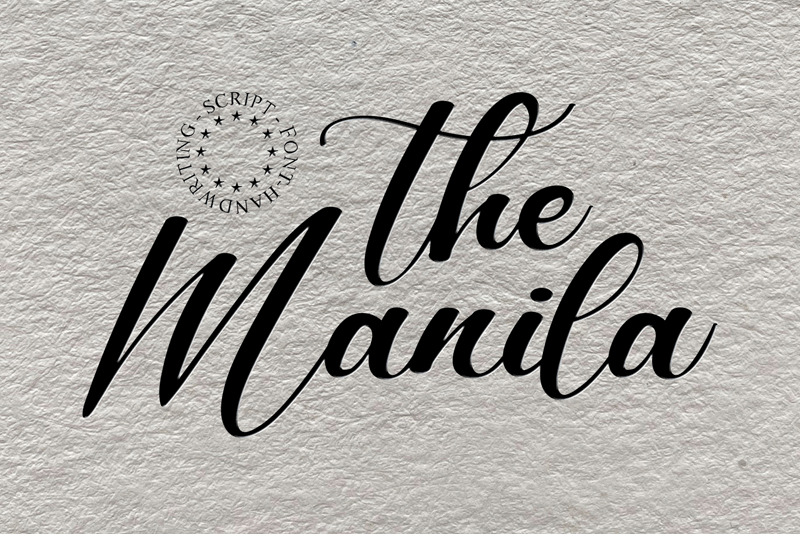
Preview and download The Manila Font. Created by Erik Luluk in Script Calligraphy styles with Free for personal use license.
The Manila is a round-lettered script font. It has a modern yet whimsical style and it will undoubtedly immerse your designs into a magical world. Attention : The Manila handwriting Font is prohibited to use this font for commercial purposes or for profit without the permission of the author/admin, without being known to use this font without permission, will be subject to sanctions 5x the specified price. This font is used only for demos (Demo license) If you want to use this font for commercial use please contact email: erikluluk0@gmail.com or click the link below: https://www.creativefabrica.com/product/the-manila/ref/745146/ If you want to see more other fonts, please click:https://www.creativefabrica.com/designer/erik-studio/ref/745146/ Any donations are very appreciated. Paypal account for donation: https://paypal.me/eriksupriyant thanks. |